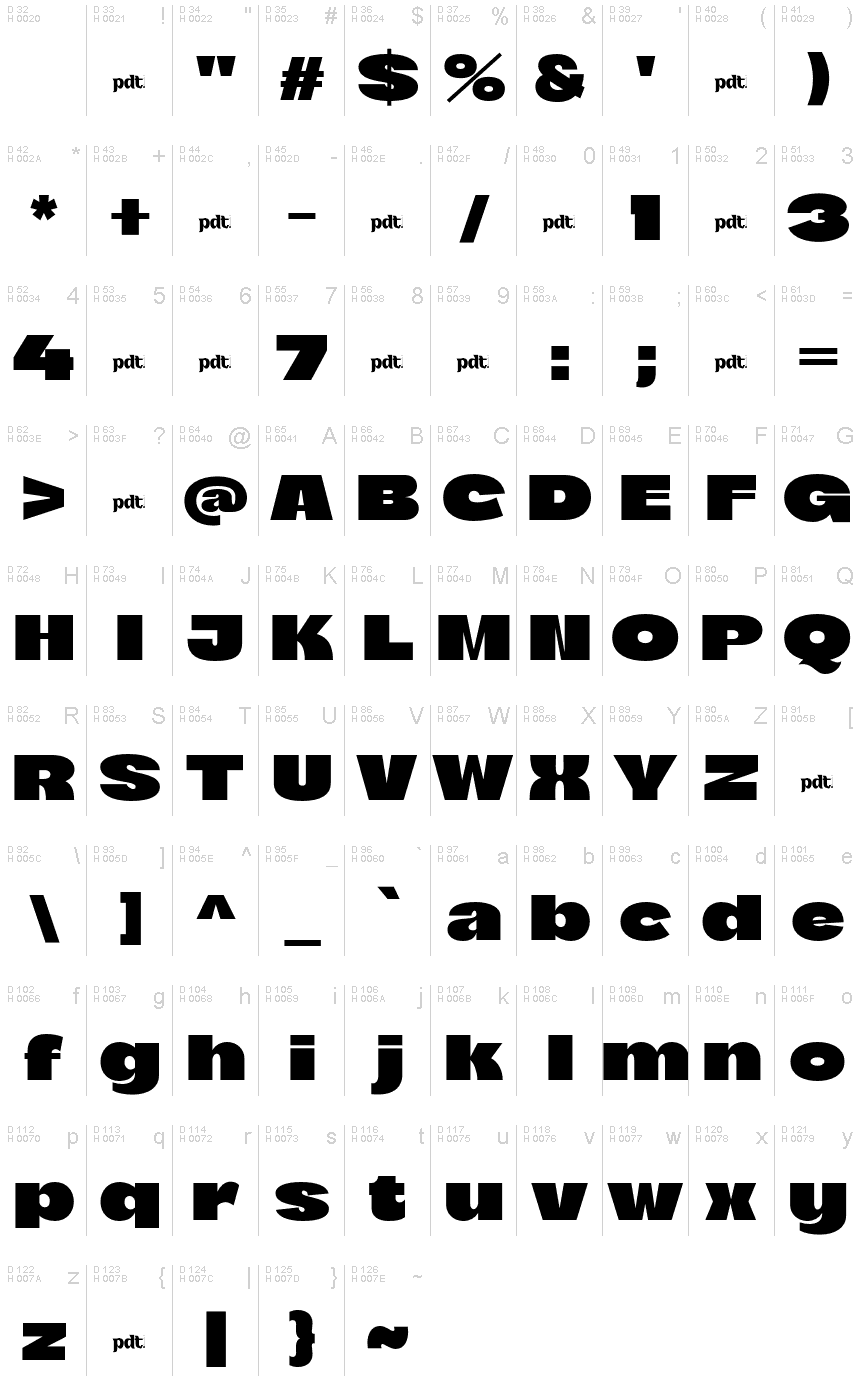
Cedagtrial-Regular
Cedag, the extra-bold and extra-expanded sans serif typeface designed by Rozi of Productype is the perfect choice for projects that require a bold and impactful design. The thick strokes of Cedag create a strong, commanding presence and make it ideal for headlines, titles or logos. This versatile font is suitable for a range of design projects such as branding, packaging, advertising or web design. Its unique style adds character to any project while maintaining clarity and legibility. With Cedag, your designs will stand out from the crowd and leave a lasting impression on your audience.